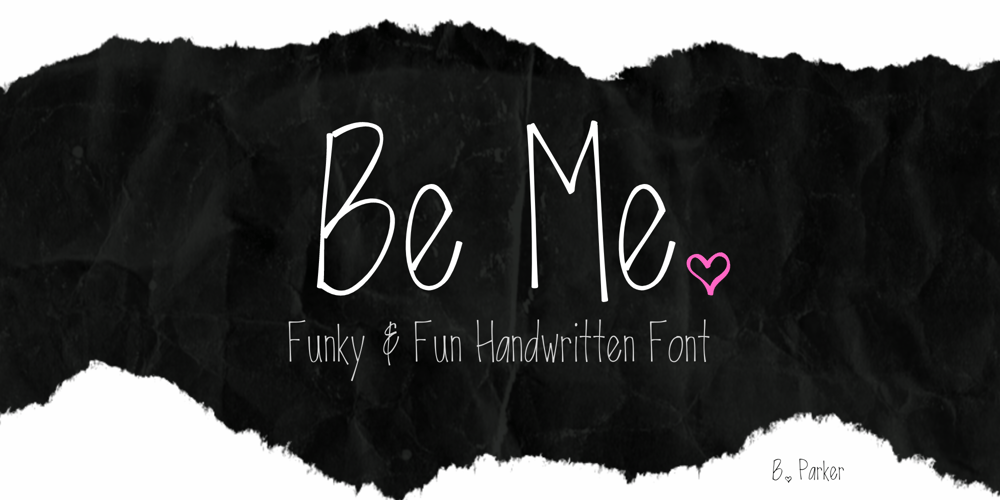
Be Me Font Family was designed by Brenna Ricci and published by One Line Design. Be Me contains 2 styles and family package options. When your handwriting is that good… make a font! Now you can “Be Me.” Give your text a little attitude with this fun font! This font is great for beauty, fashion, announcements and so much more! With a variety of swashes and fun symbols to create quirky posters. Regular & Bold fonts include: 1821 Glyphs Including Basic Latin, Latin-1 Supplement, Latin Extended-A, Latin Extended-B, Greek and Coptic, Cyrillic, Thai, Miscellaneous Symbols, Hiragana, Katakana, CJK Unified Ideographs, & More.